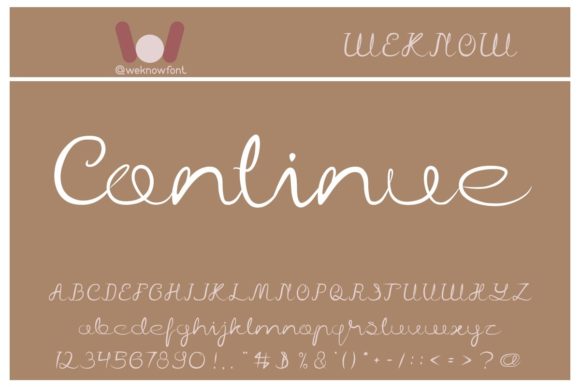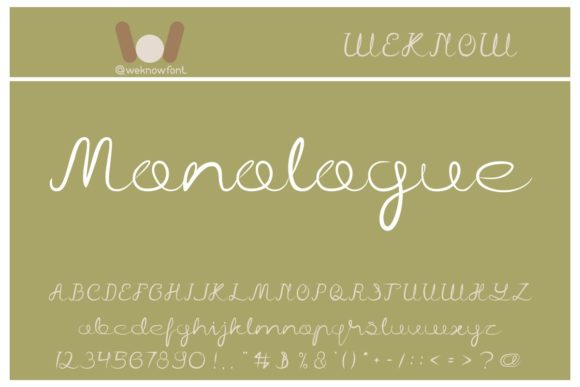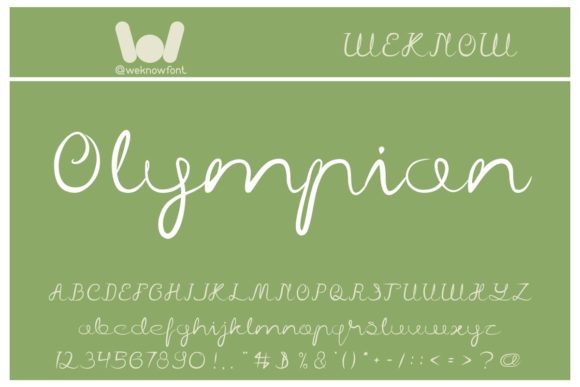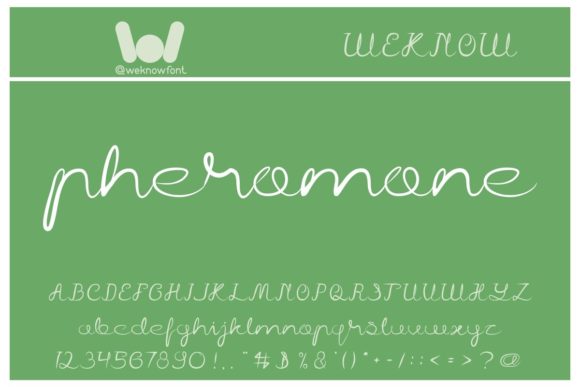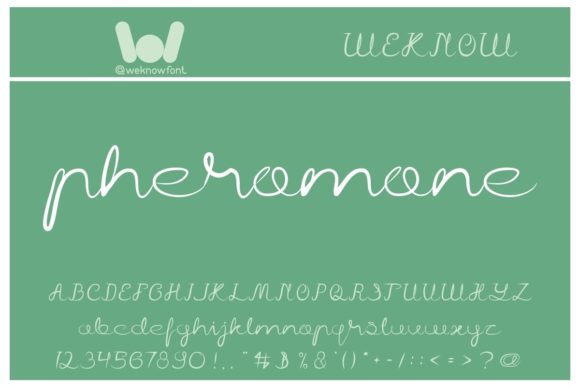
Continue Font
About Continue Font
Continue is a delicate and chic script font. It is suitable for various apparel industries, posters, music, movies, game, magazine, book, comic, cartoon, YouTube, Instagram, website, or any of your creative design projects.